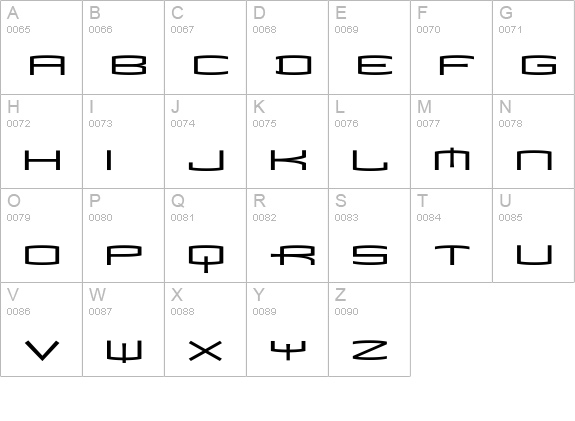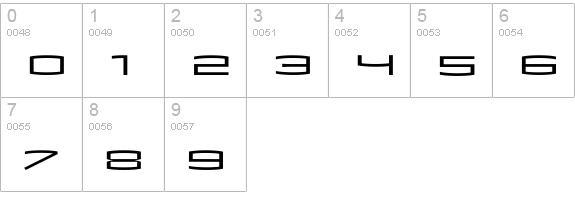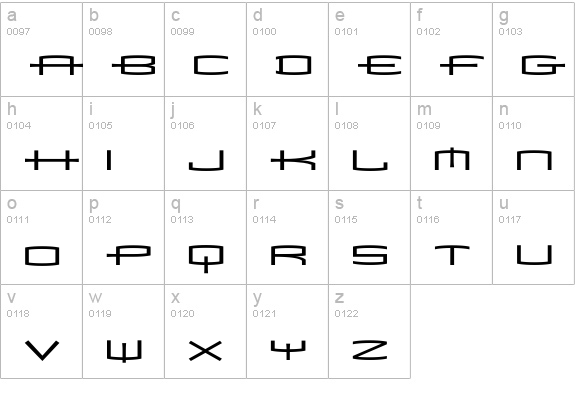
MataCond Font Details
MataCond is a stunning and versatile font that effortlessly combines elegance with a touch of modernity. Its sleek and clean lines make it perfect for any design project, whether it be a logo, branding materials, or even a website. With its wide range of weights and styles, MataCond offers endless possibilities for creating eye-catching and impactful typography. But what sets MataCond apart is not just its exceptional design, but also the fact that it is completely free. Yes, you read that right - this incredible font can be downloaded at no cost, making it accessible to designers and creatives of all levels. Gone are the days of compromising on quality due to budget constraints, as MataCond proves that premium fonts can be freely available to everyone. To get your hands on MataCond, simply head over to FontsMarket.com, a trusted source for high-quality fonts. There, you will find the download link, ready to unlock a world of design possibilities. Whether you are a professional designer looking to enhance your creative projects or a student just starting out, MataCond is the perfect addition to your font collection. With its timeless appeal and accessibility, MataCond is sure to become a favorite among designers worldwide. So don't wait any longer - download MataCond today and let your creativity soar to new heights.